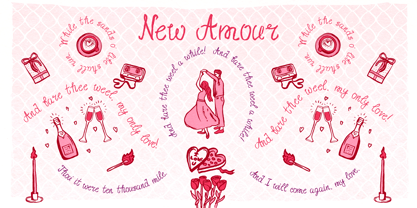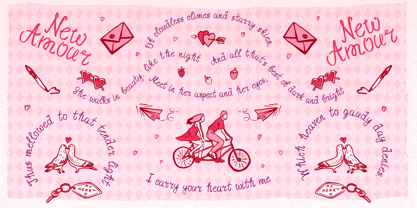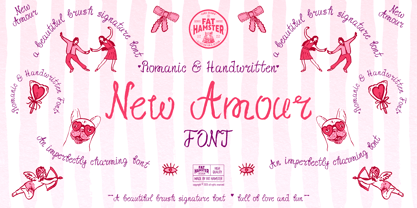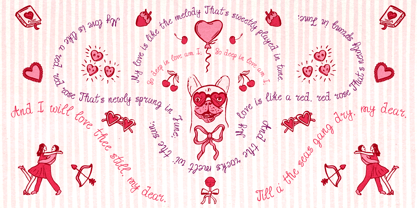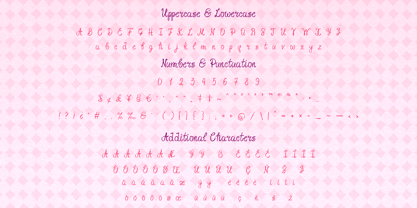
New Amour
by Fat Hamster
The New Amour Font Family was designed by Alesia Kutsian, Aliaksei Hvozdzeu and published by Fat Hamster. New Amour contains 1 styles. More about this family
New Amour - Handwritten brush font.
Unleash the magic of love and creativity with our stunning New Amour romantic handwritten brush font. Perfect for designers looking to add a personal touch to their projects, this font beautifully captures the essence of romance with its charming strokes and whimsical curves. New Amour font will give your designs a romantic authentic and warm feel. Ideal for wedding invitations, love letters, greeting cards, quotes, branding, and more! Whether you’re crafting a beautiful wedding invitation or a charming social media post, our New Amour romantic handwritten brush type will elevate your design game!
Designers: Alesia Kutsian, Aliaksei Hvozdzeu
Foundry: Fat Hamster